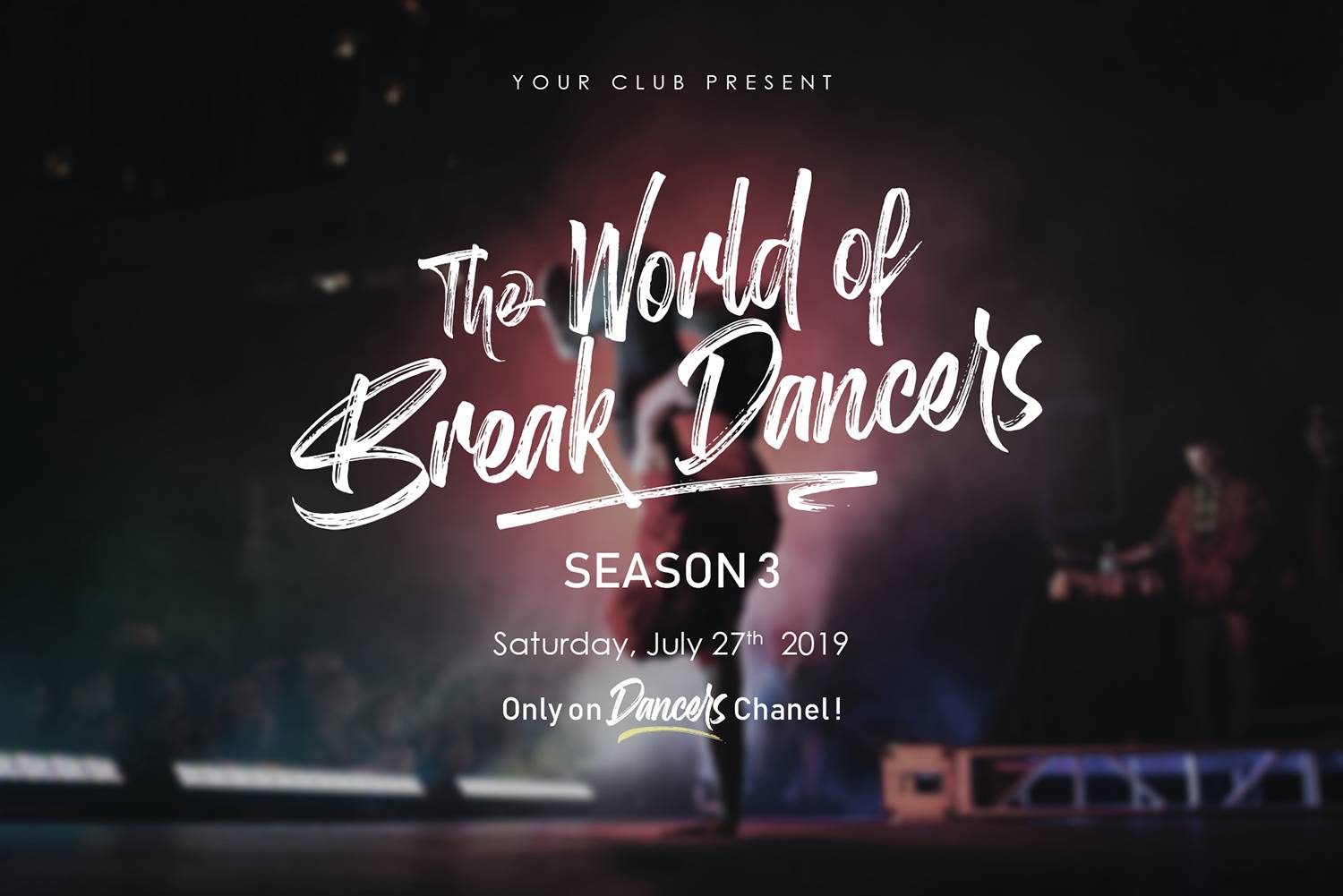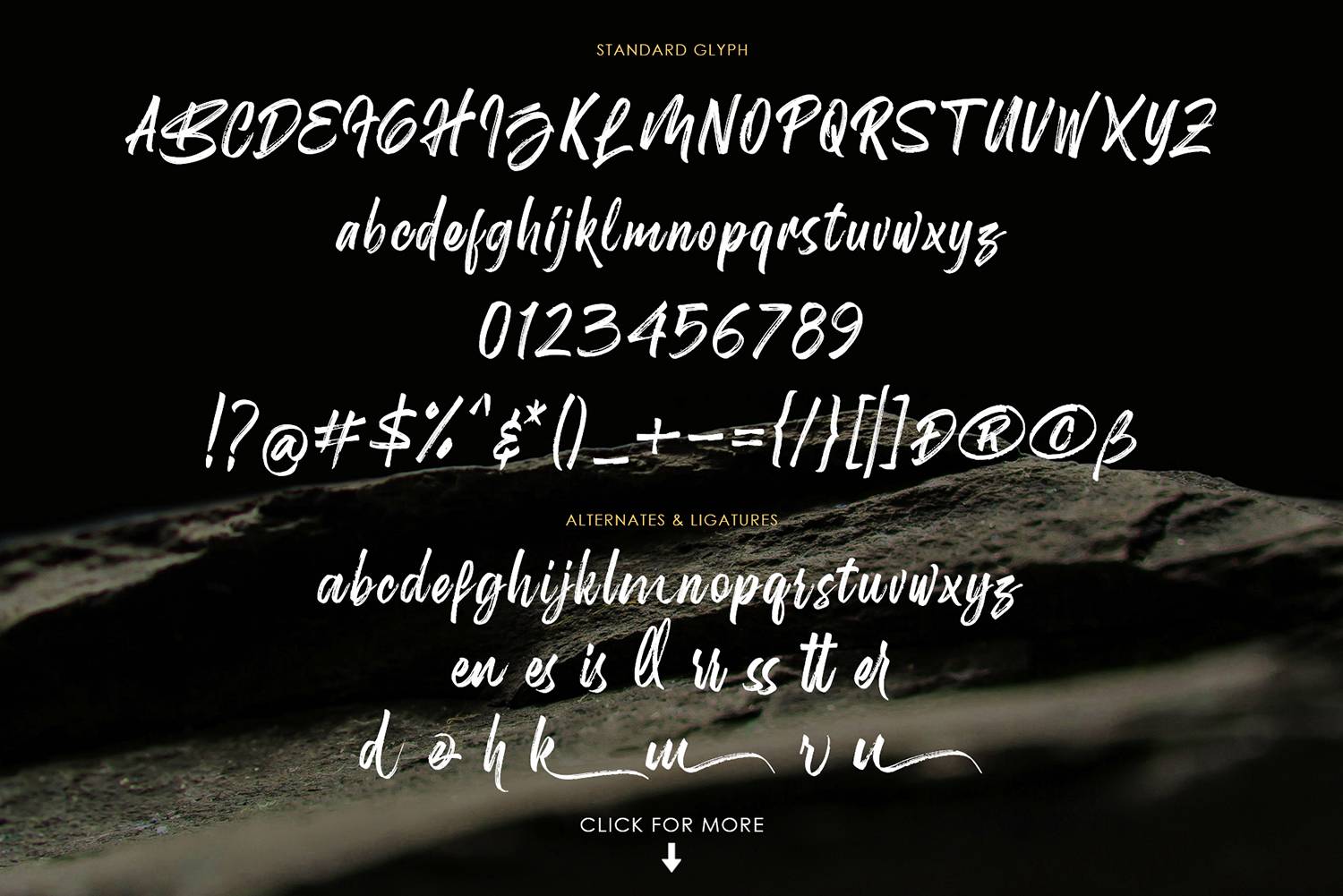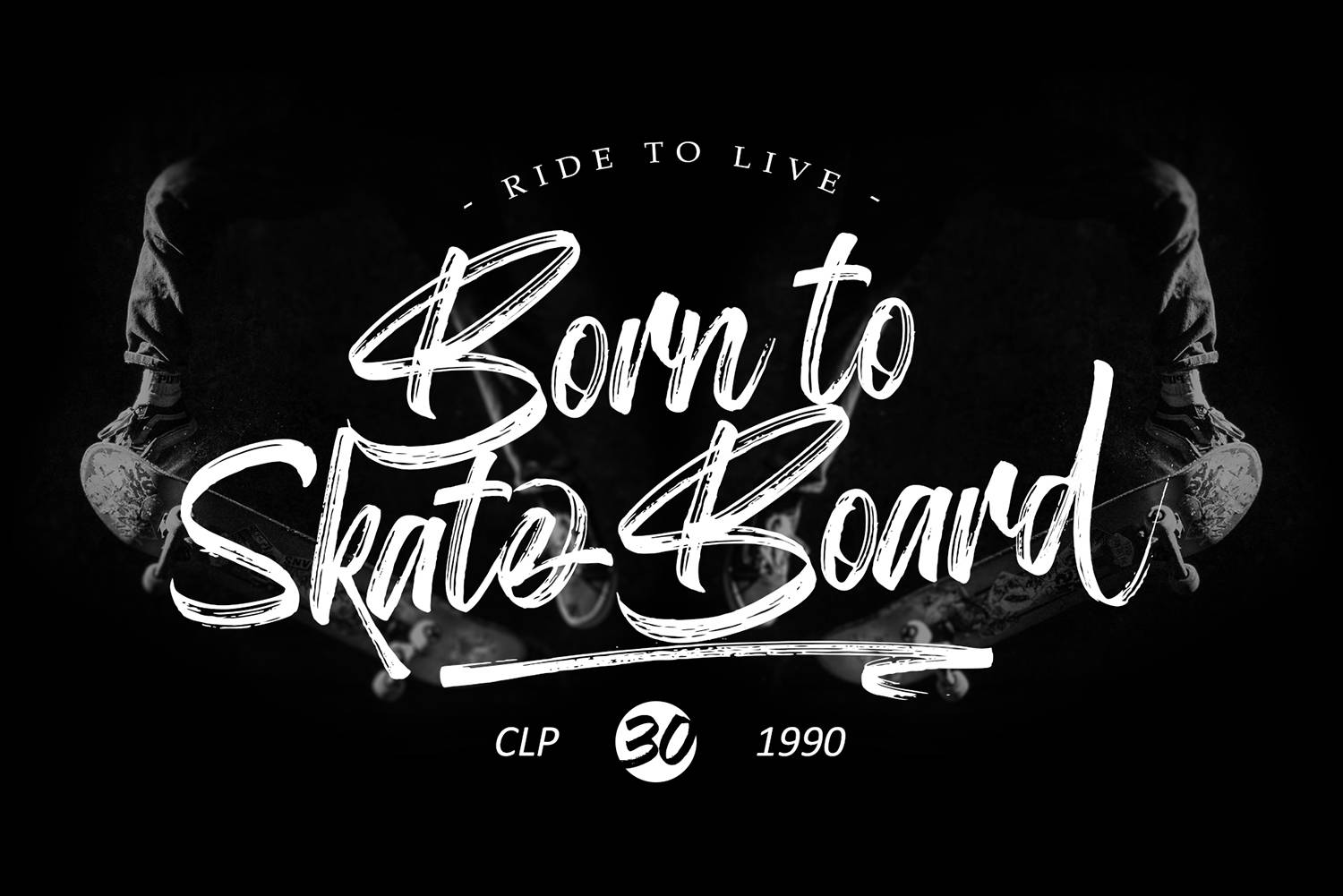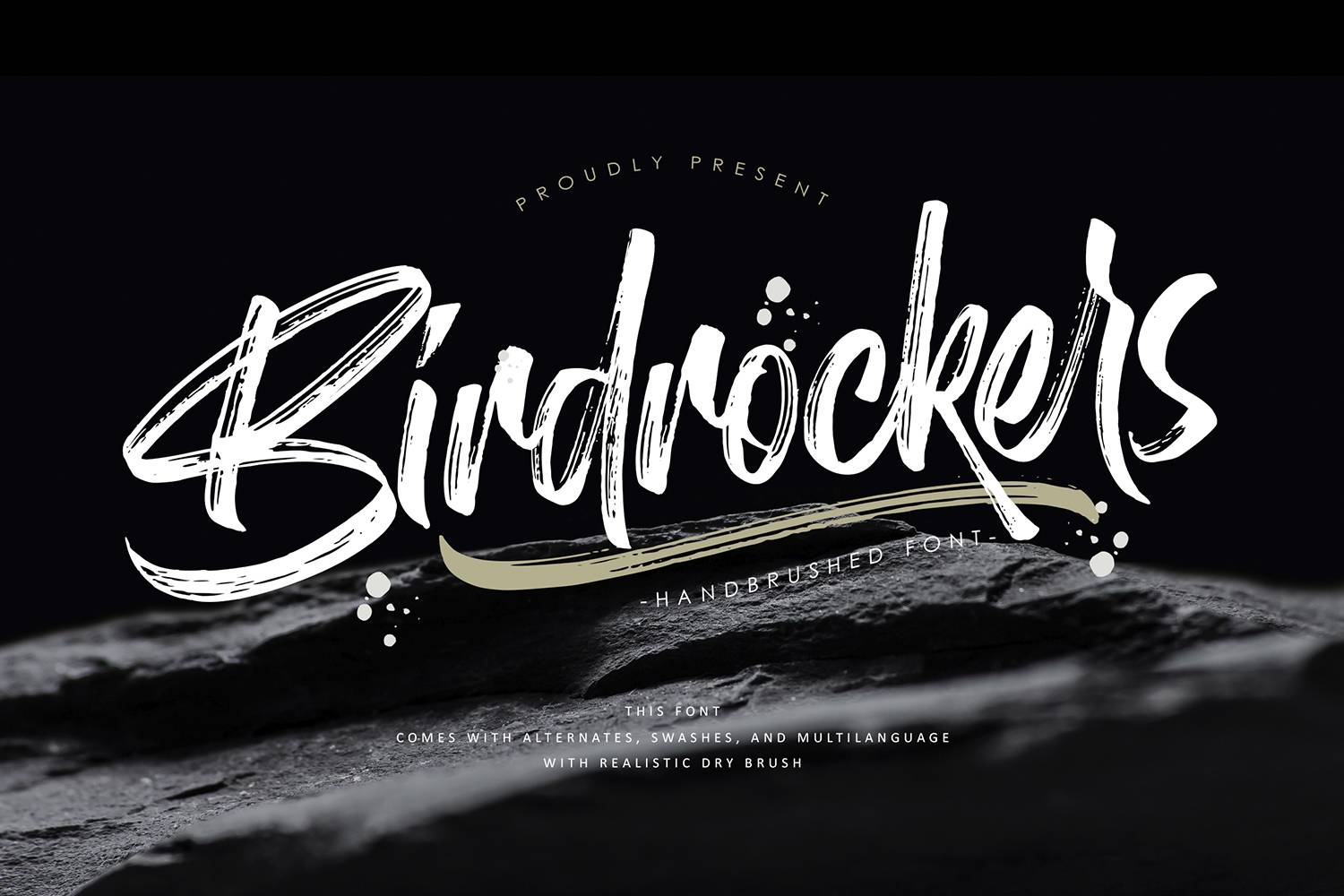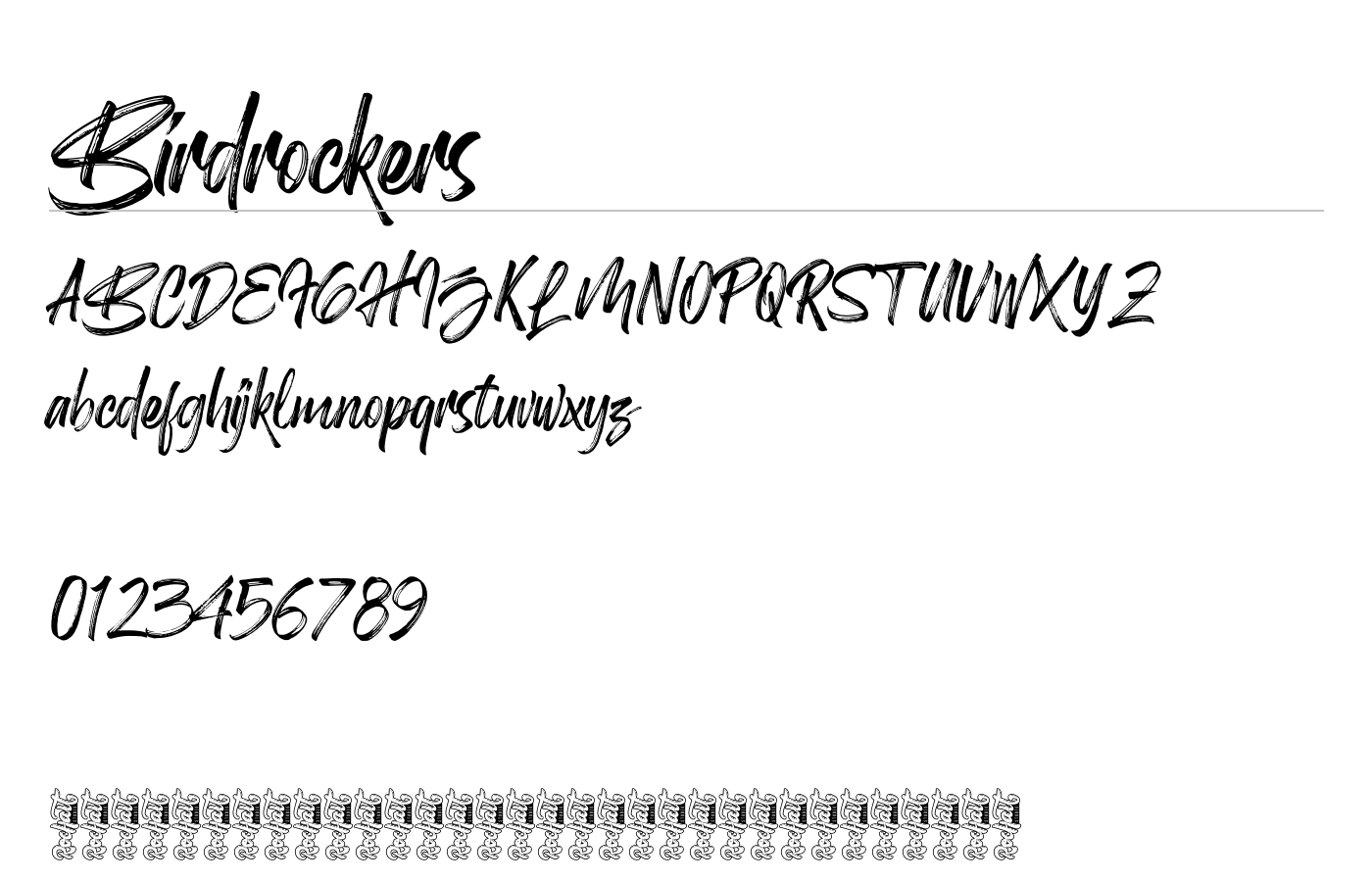
Birdrockers is a bold, expressive script font that captures an energetic, hand-painted style with its textured, brushstroke look. Its lively, casual letterforms convey a creative and dynamic personality, making it perfect for bold headlines, logos, and branding that seek a handcrafted, artistic feel. This font works best in designs that want to stand out with a spirited, informal vibe, such as fashion, music, or lifestyle projects.
Birdrockers Font
About Birdrockers Font